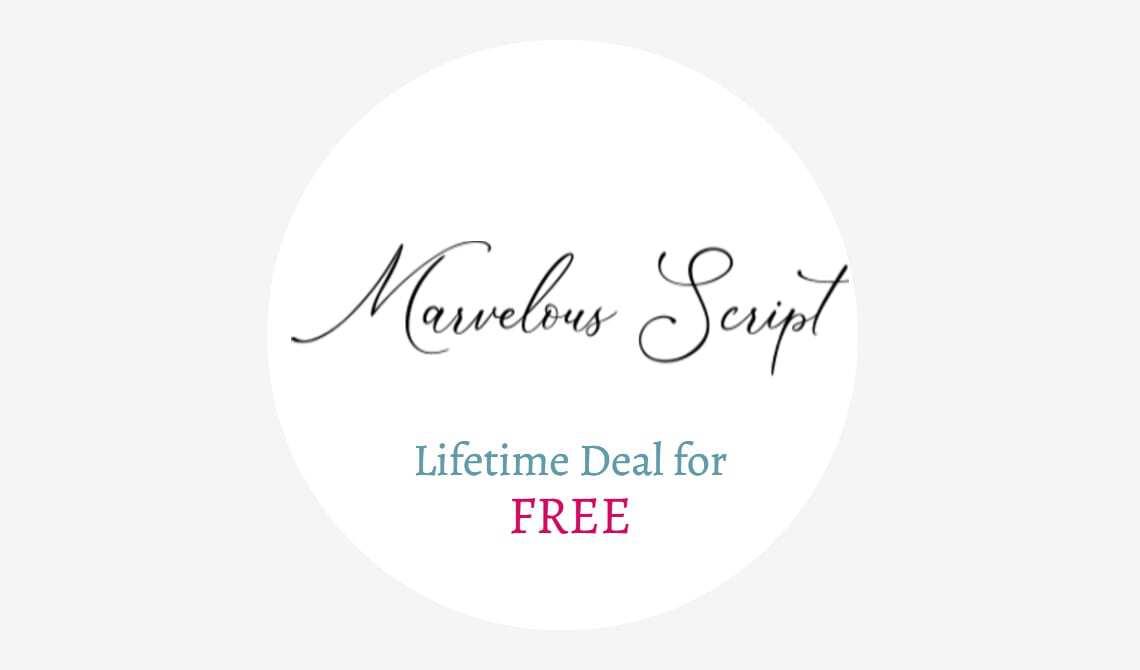
The Marvelous Font Duo Bundle
Beautify your text game on business cards to letterheads with this amazing font.
The Marvelous Font Duo, from Ghuroba Studio, is a stunning pair of a beautiful script and a sans serif fonts
Perfect for branding, invitations, business cards, weddings, logos, product packaging and more